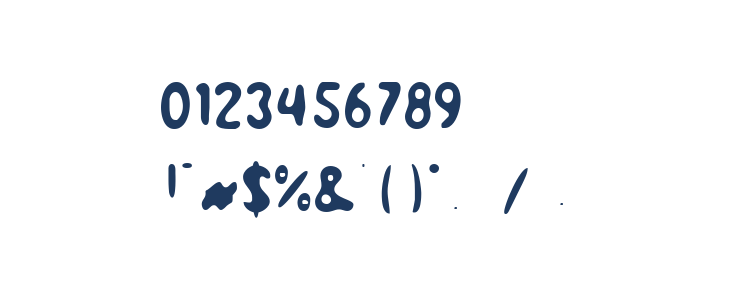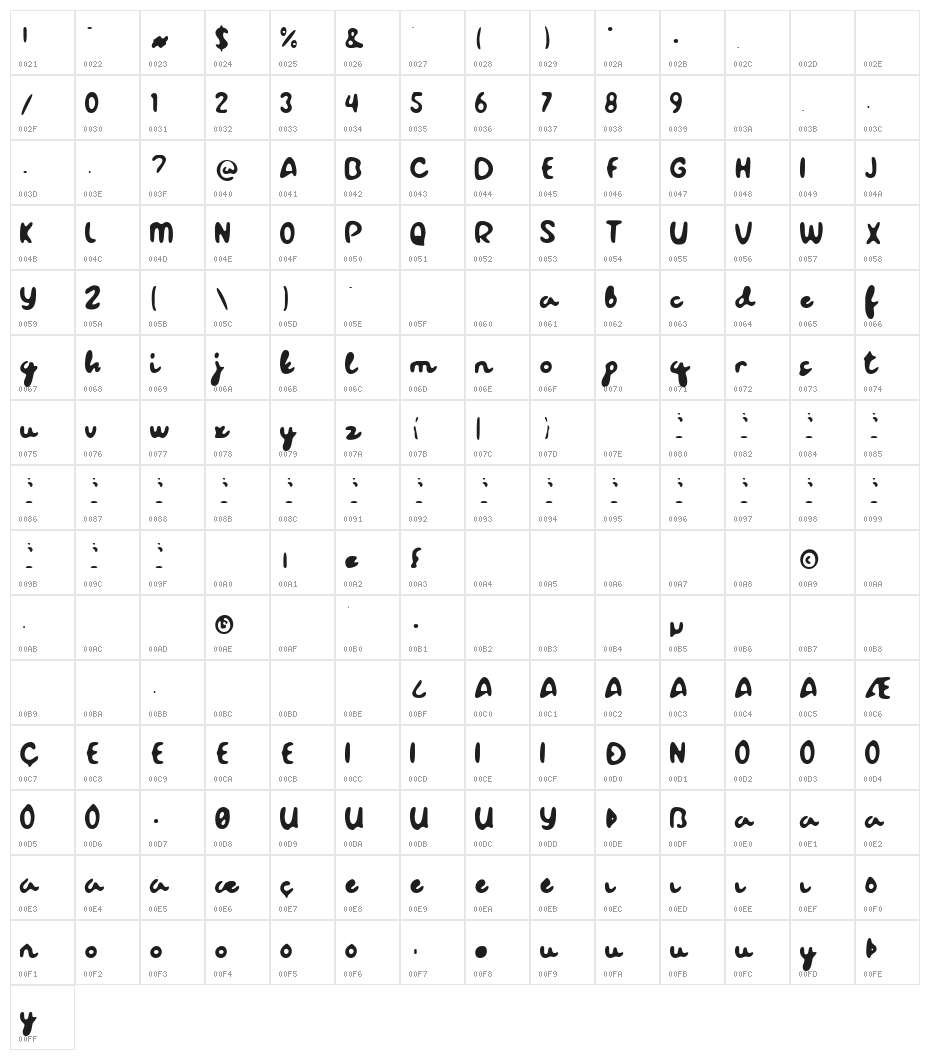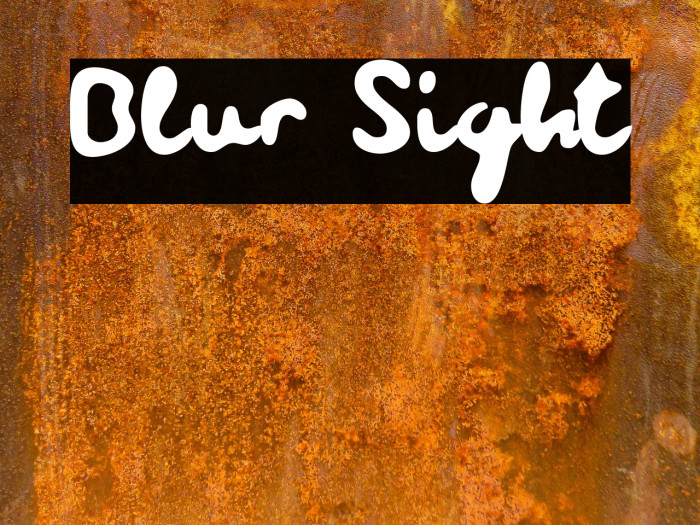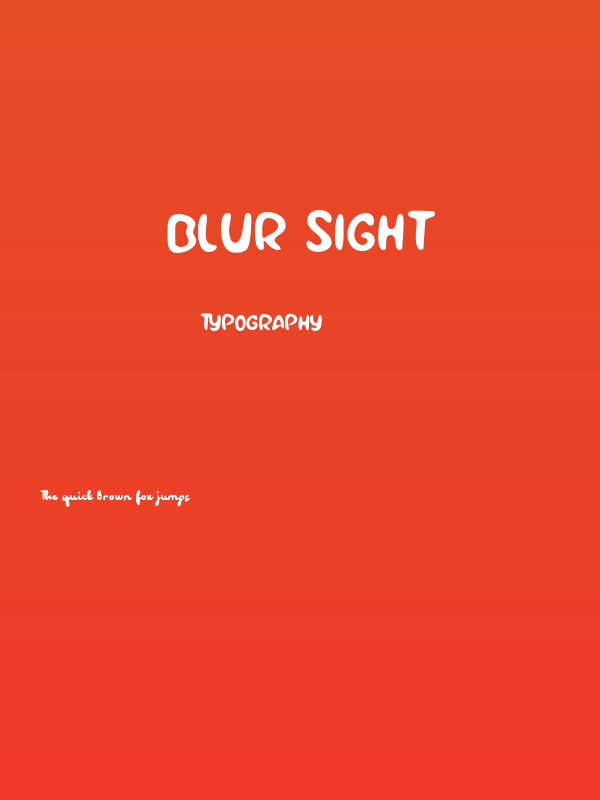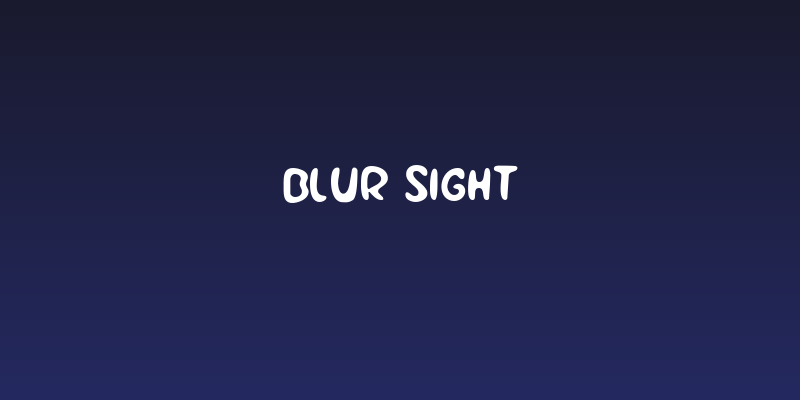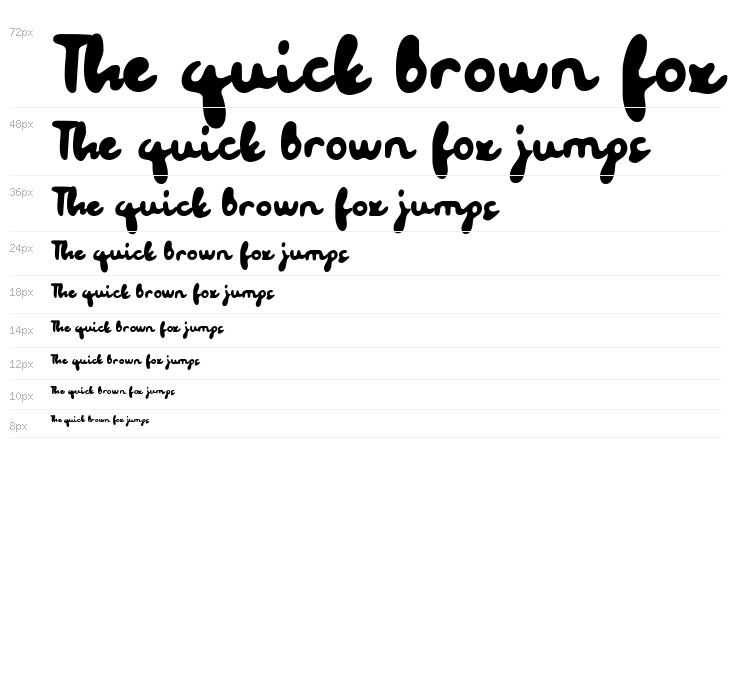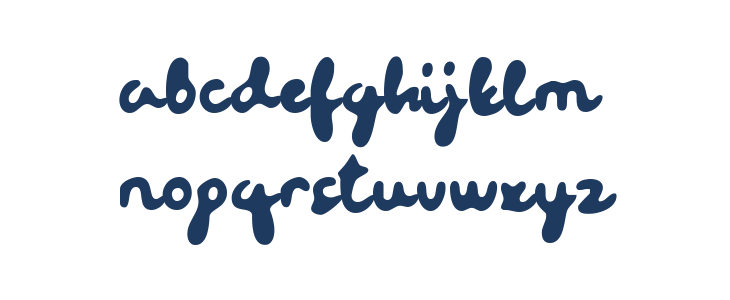
Blur Sight Font
Blur Sight Description
This font features a playful and bold design with a unique, wavy appearance. The characters are rounded and have a hand-drawn feel, giving them a whimsical and informal style. The letters are thick and have a consistent stroke width, creating a strong visual impact. The overall look is casual and friendly, making it suitable for creative and fun projects. The numbers and special characters maintain the same playful aesthetic, ensuring a cohesive look across all text elements.
Overall StylePlayful, Whimsical
Proposed ProjectsIdeal for children's books, playful branding, party invitations, and creative posters.